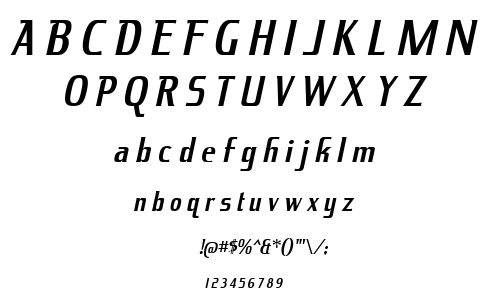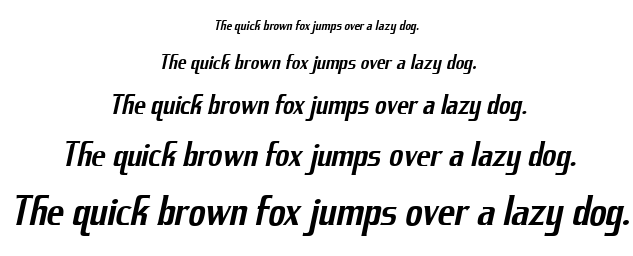
King Richard is a 1960’s era American automotive display font with flare serifs. Don’t forget to read the files inside the zip for details. Updated in 2012.